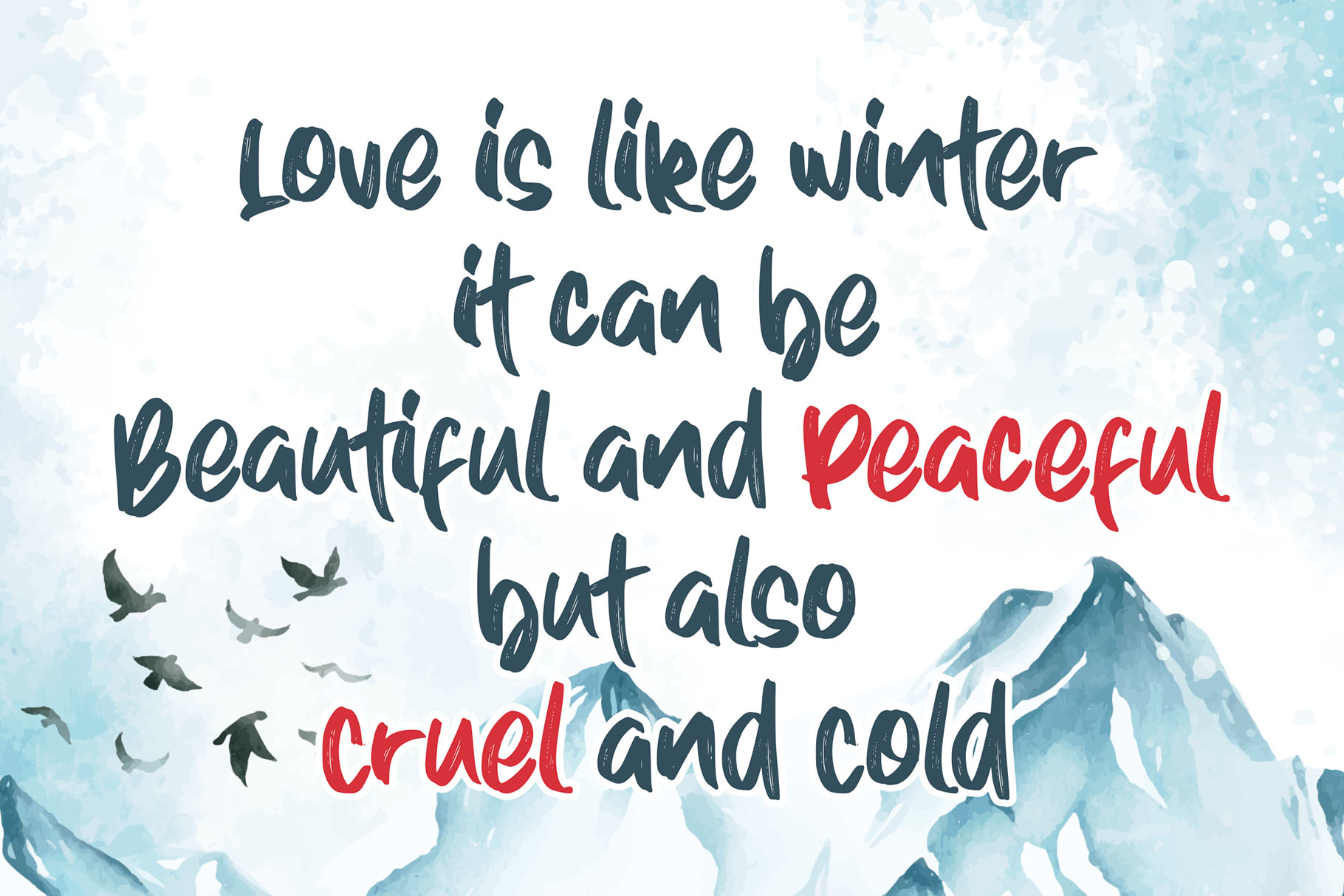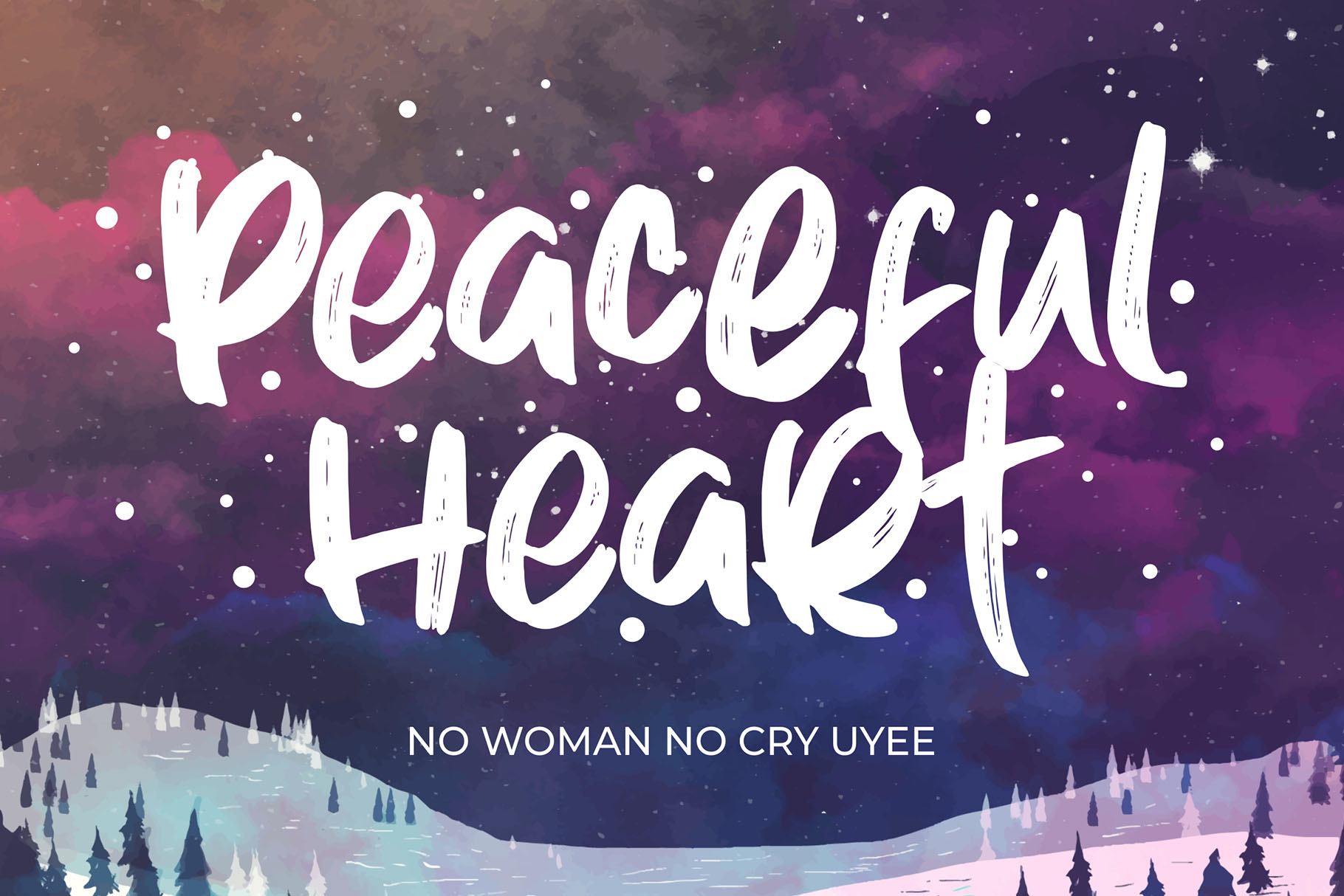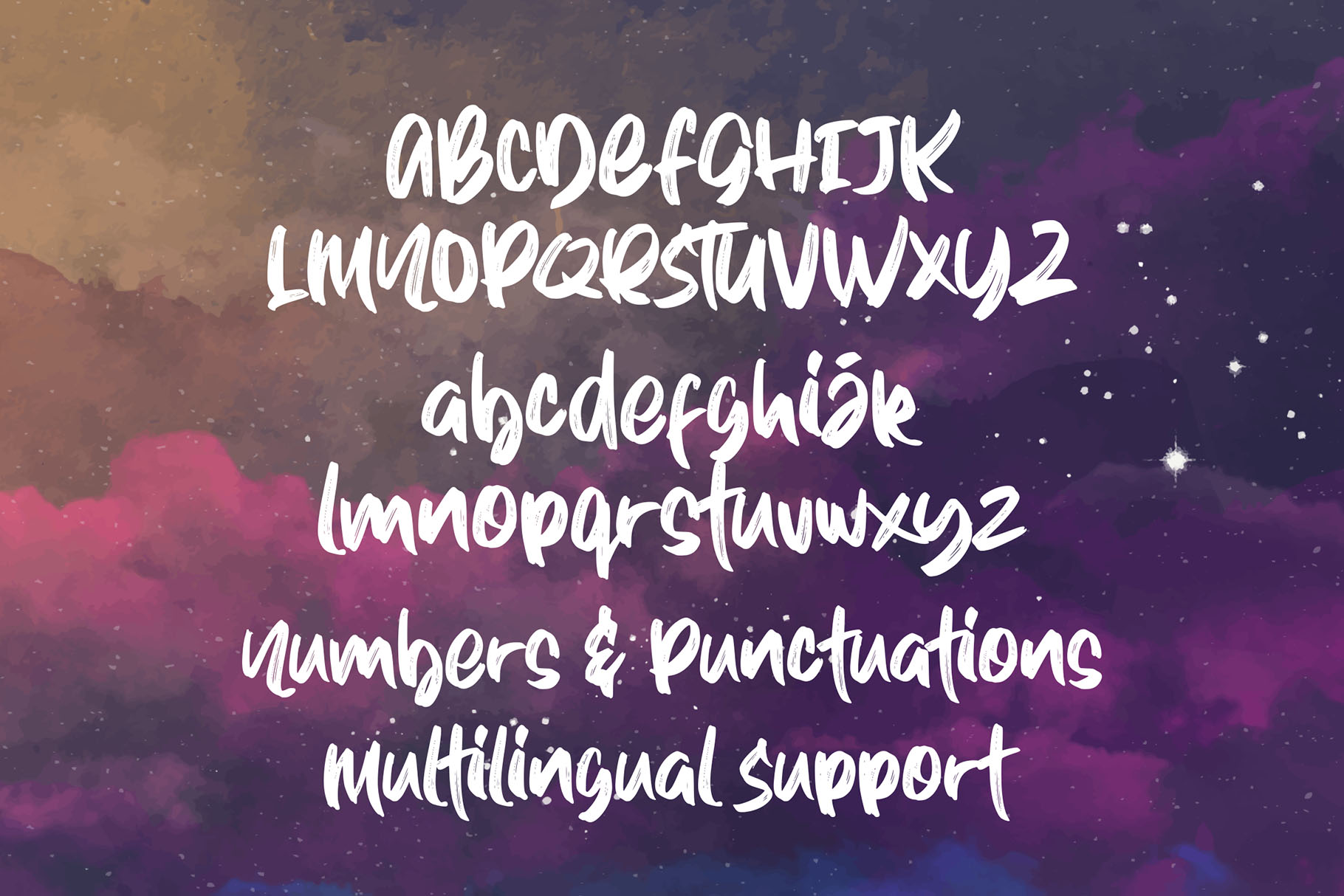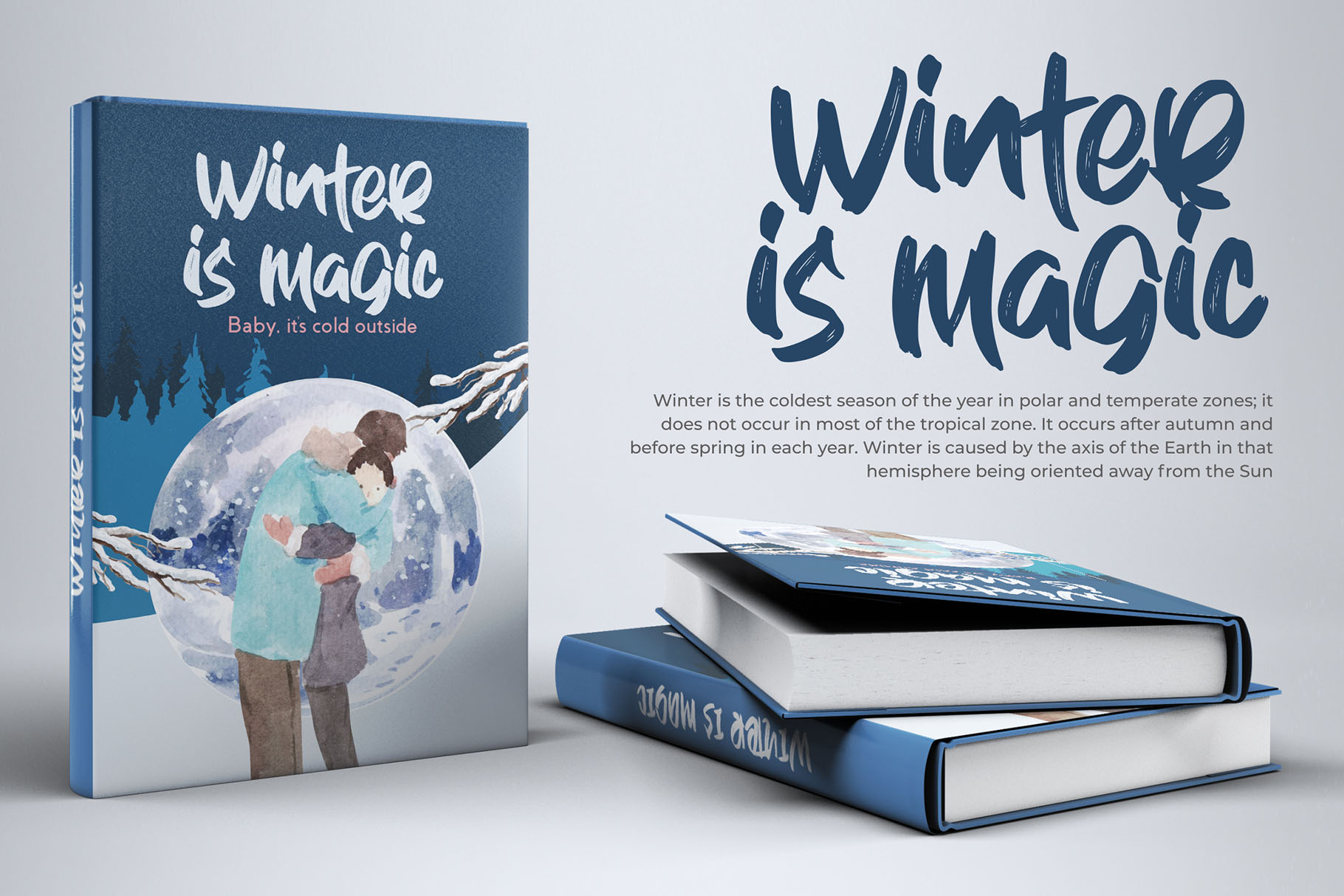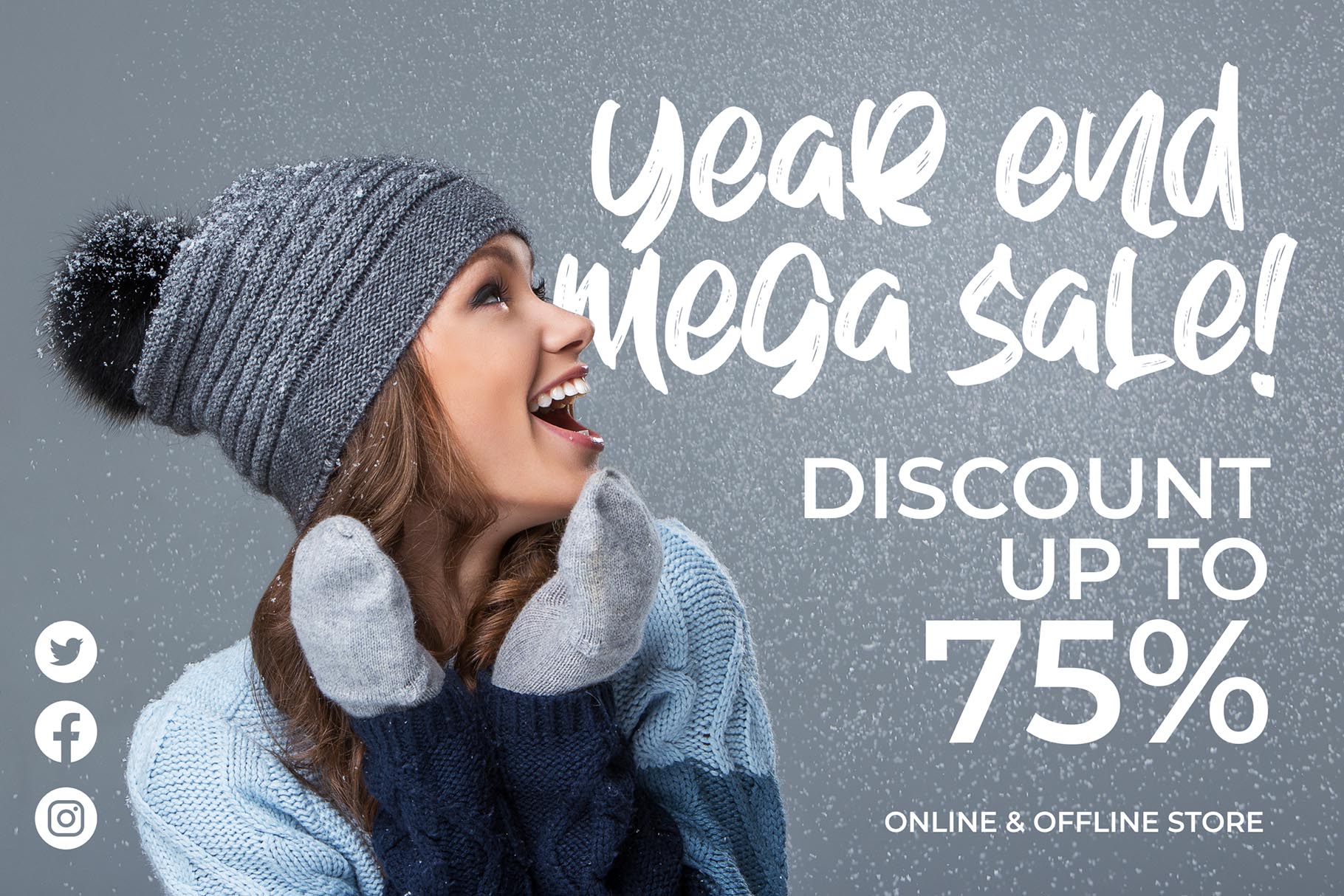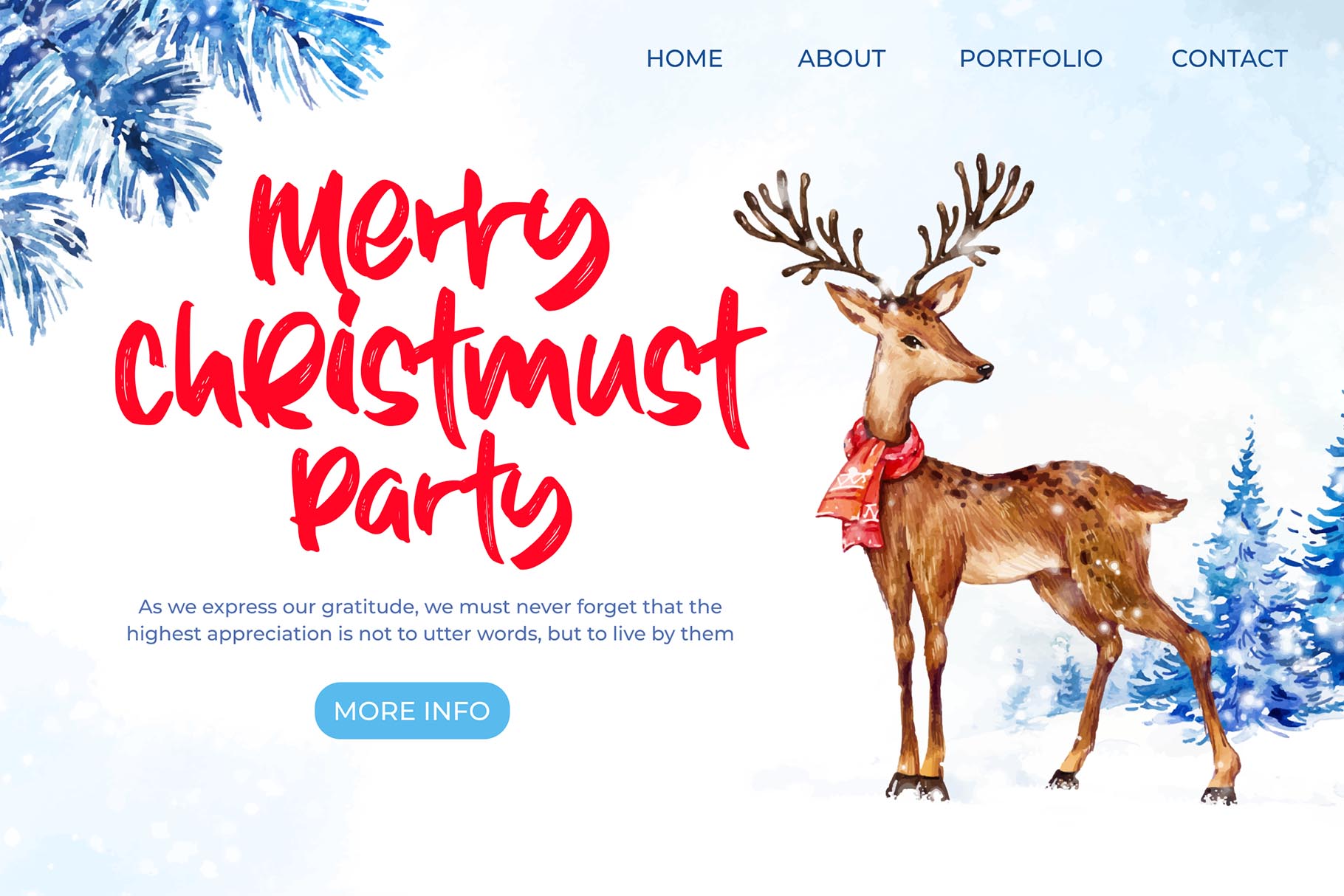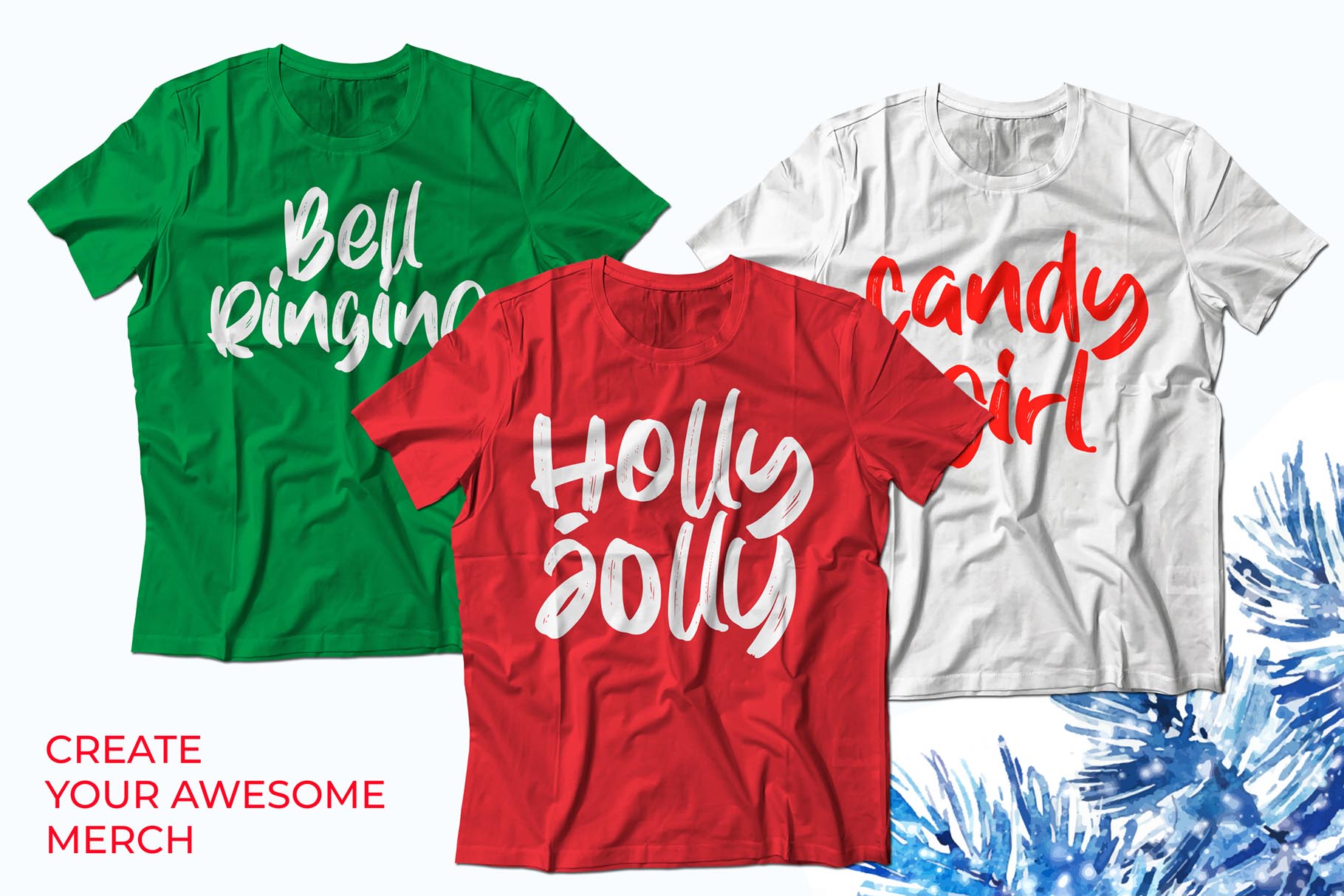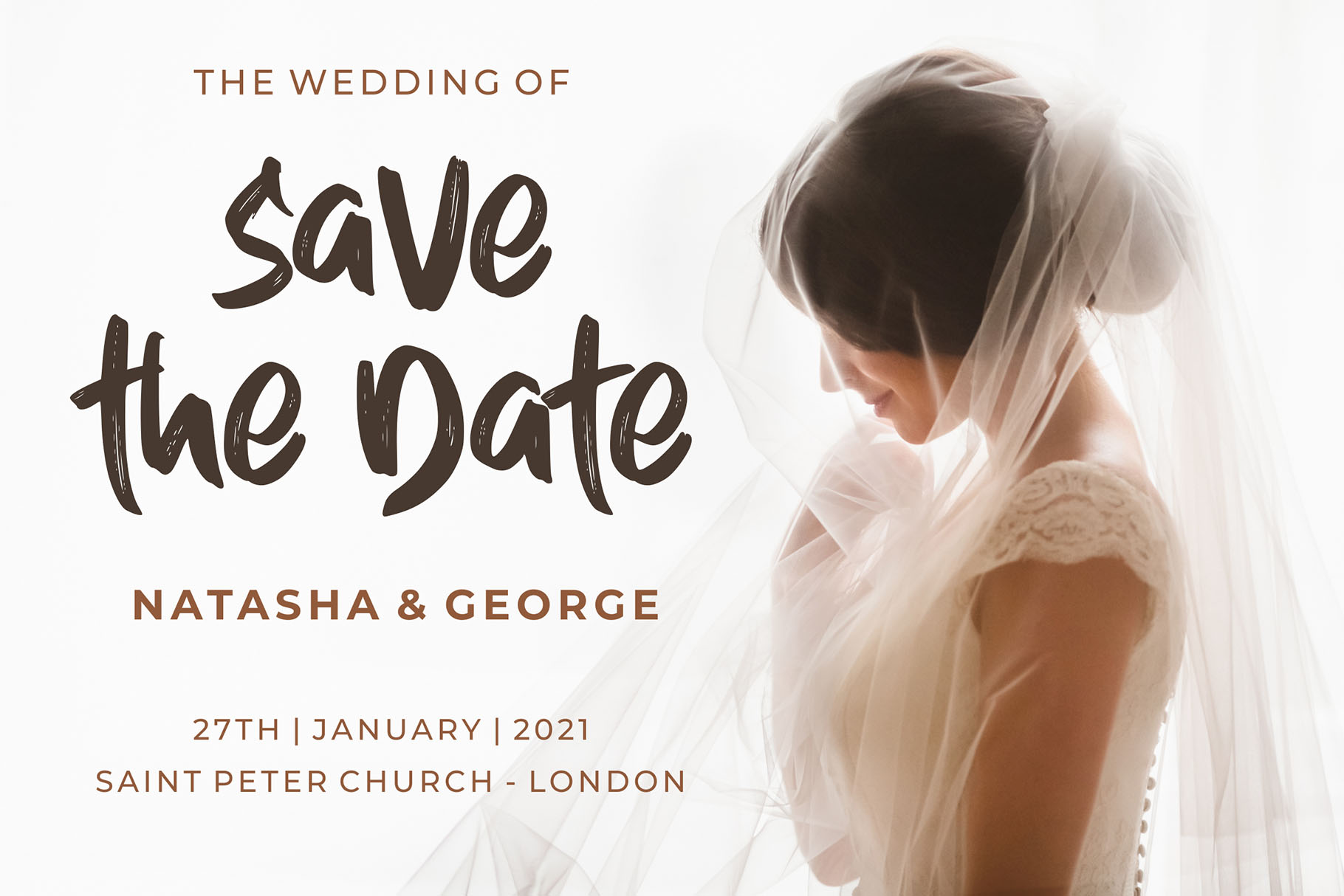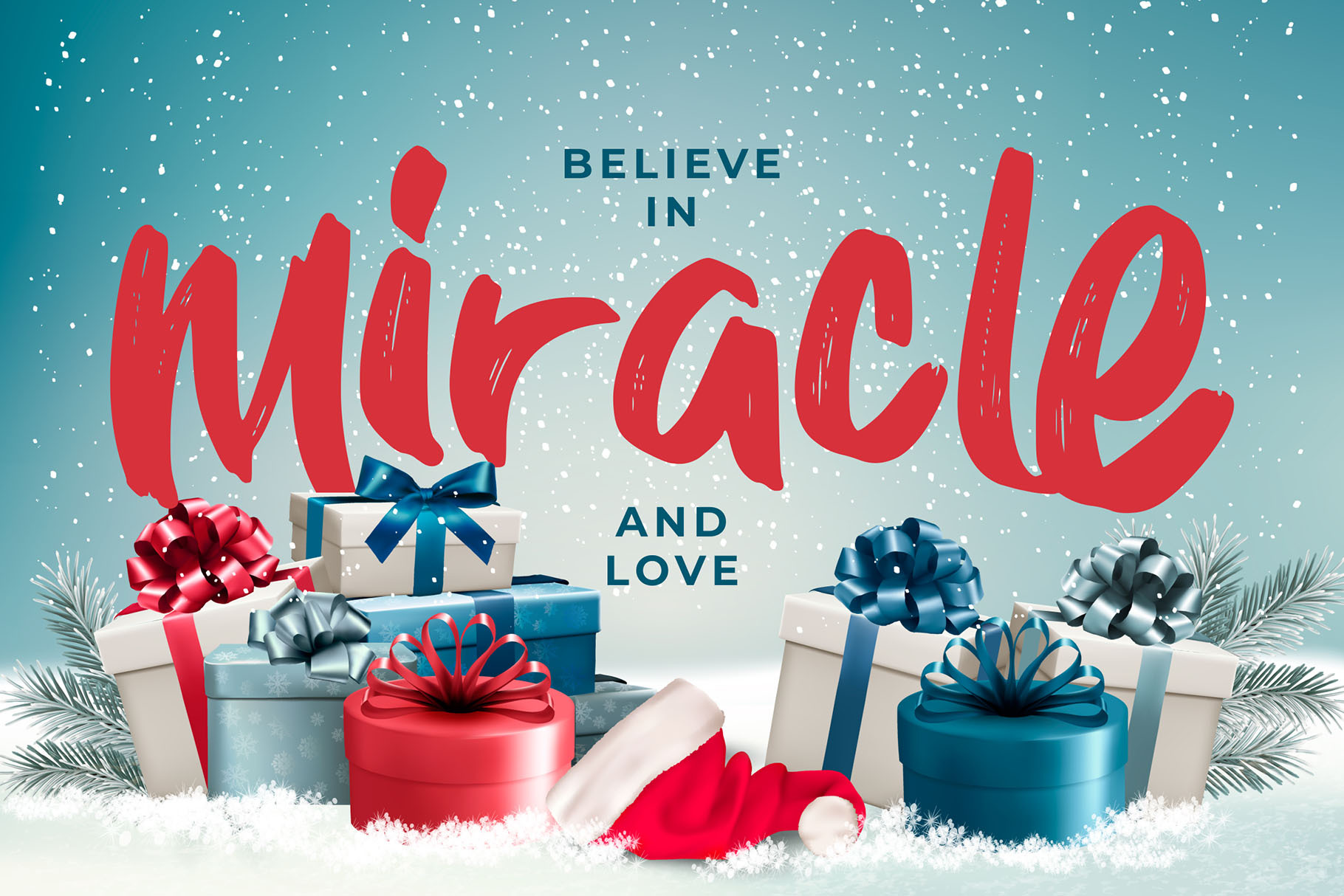
Playful Bouncing Display Font made with a very natural handwritten touch. Making it very suitable for various needs of design, branding, packaging, especially with the theme of winter and holiday.
- Basic Latin A-Z and a-z
- Numbers
- Symbols
- PUA Encode
- Multilanguage Support